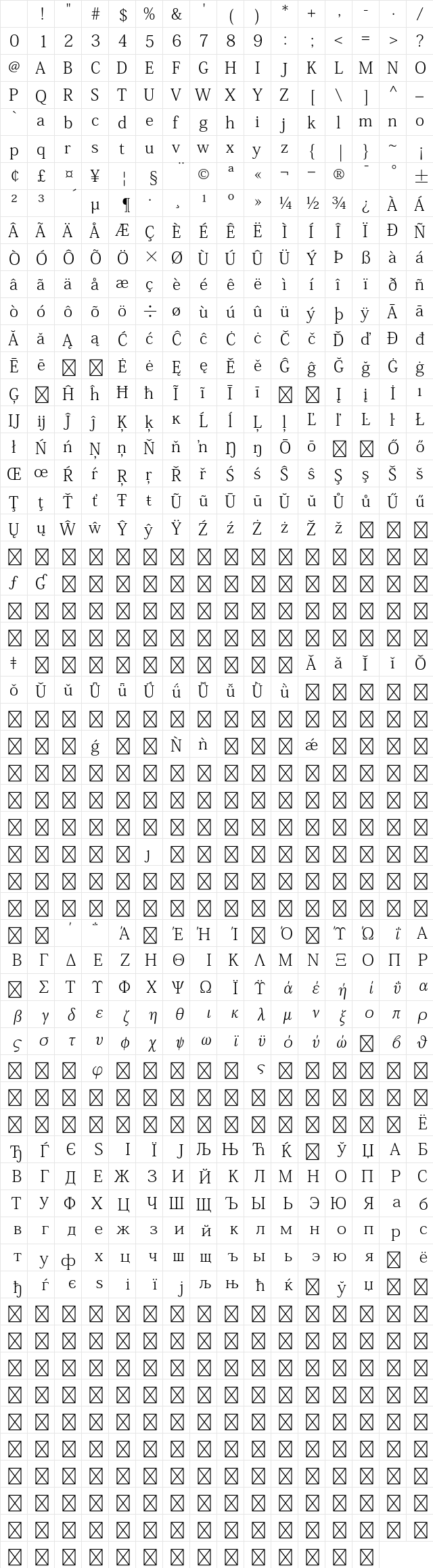
Complete Kozuka Mincho Pr6N L Regular glyph index. Displaying only characters natively supported by Kozuka Mincho Pr6N L Regular font.
Kozuka Mincho Pr6N L is a composed and adaptable typeface that performs quietly and consistently across a wide range of design contexts.